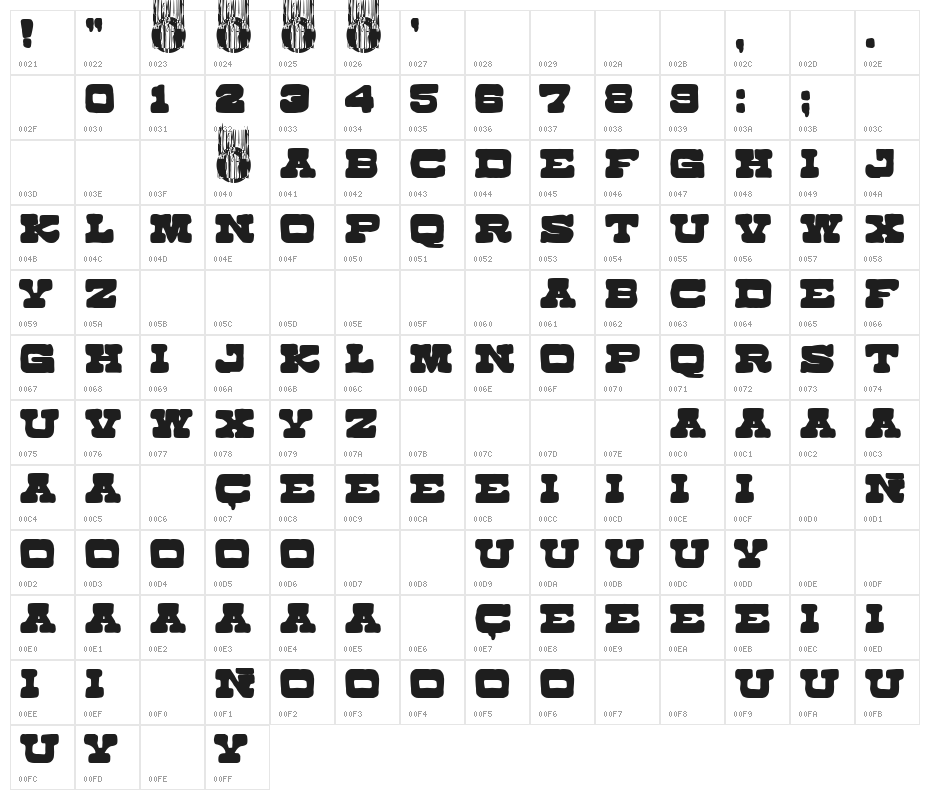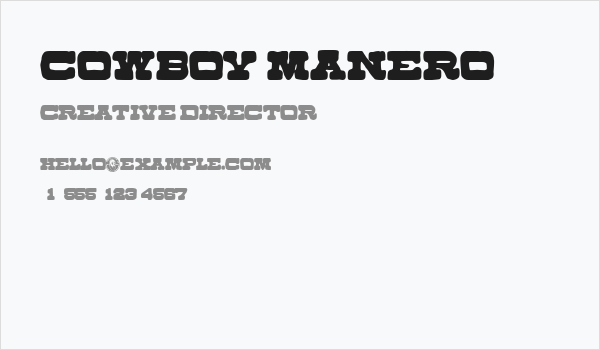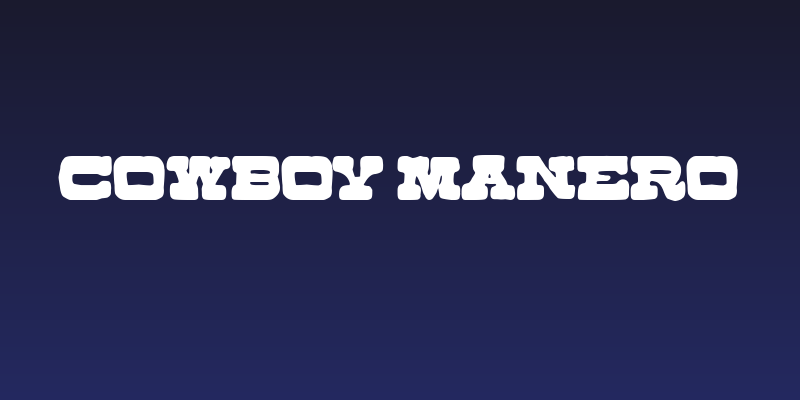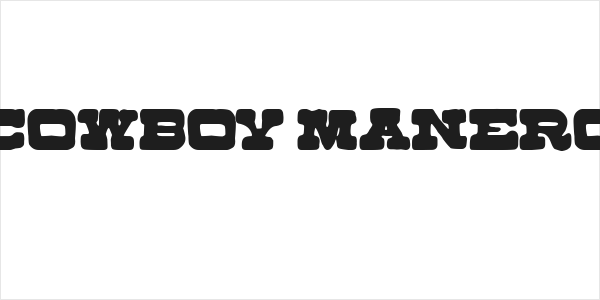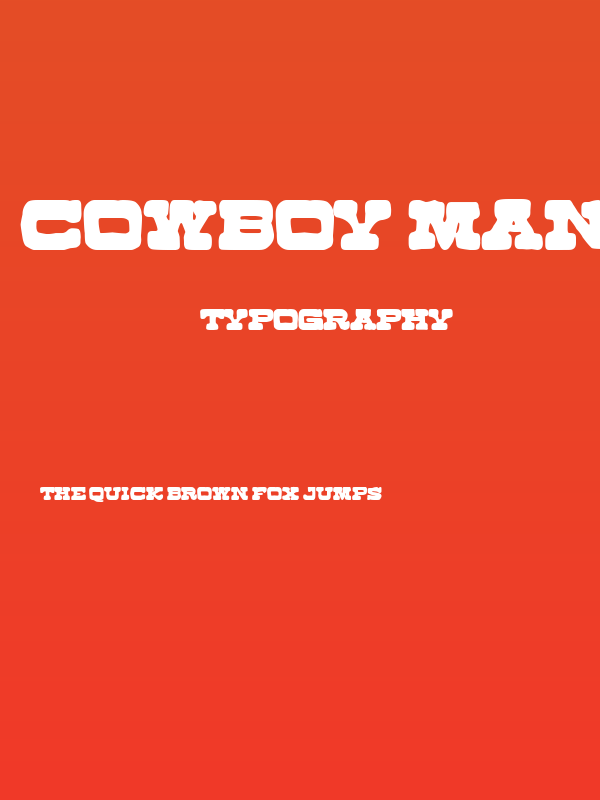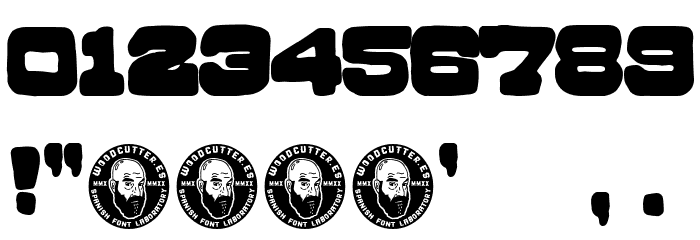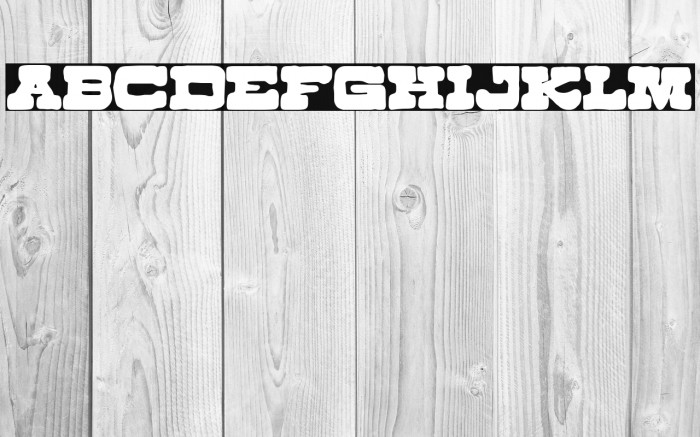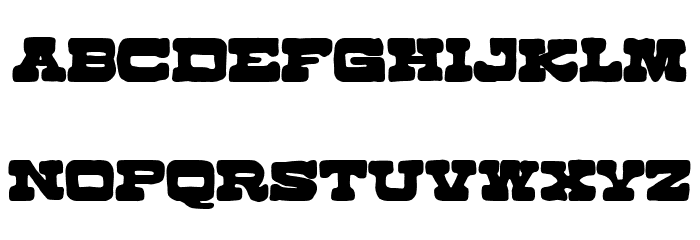
Cowboy Manero Font
Cowboy Manero Description
This font features a bold, rugged style with thick, blocky letters that convey a sense of strength and durability. The characters have a slightly rounded appearance, adding a touch of softness to the otherwise robust design. The font is reminiscent of old Western or cowboy themes, making it ideal for projects that require a vintage or rustic aesthetic. The numbers and special characters maintain the same bold and sturdy characteristics, ensuring consistency across all text elements.
| Proposed Projects | Ideal for Western-themed posters, rustic branding, vintage advertisements, and signage. |